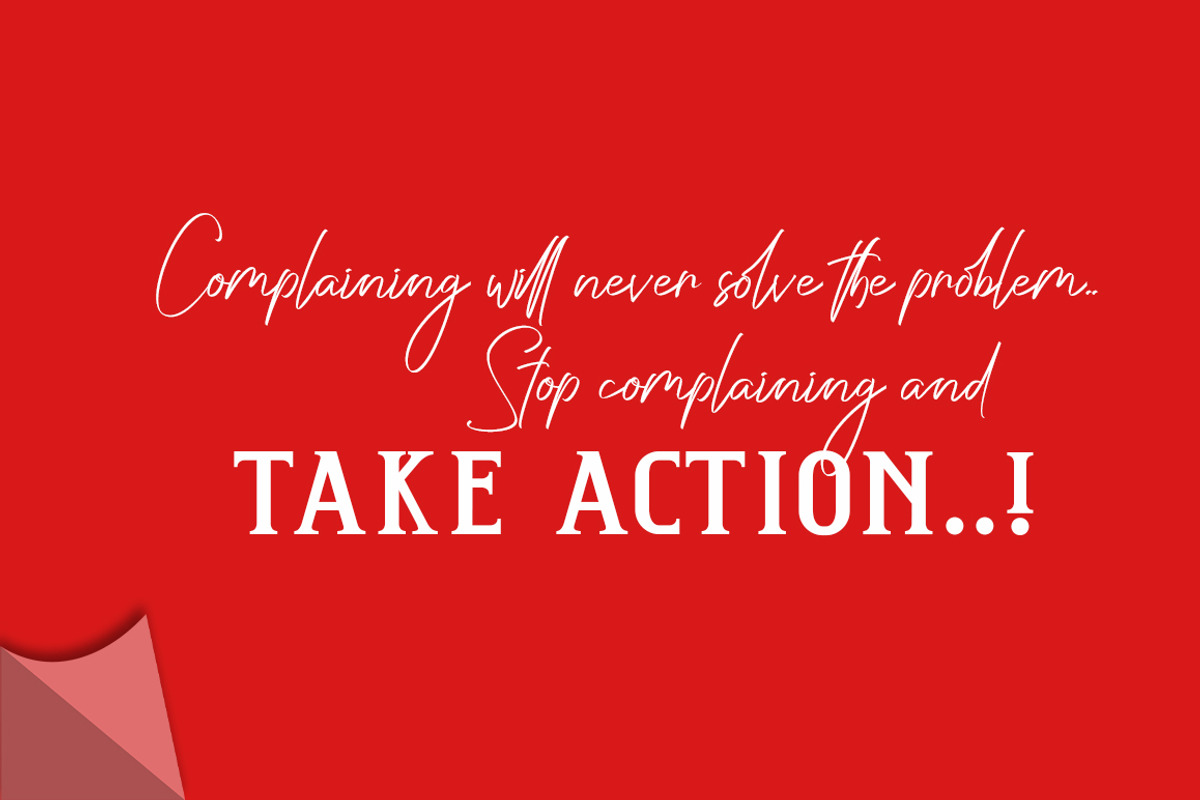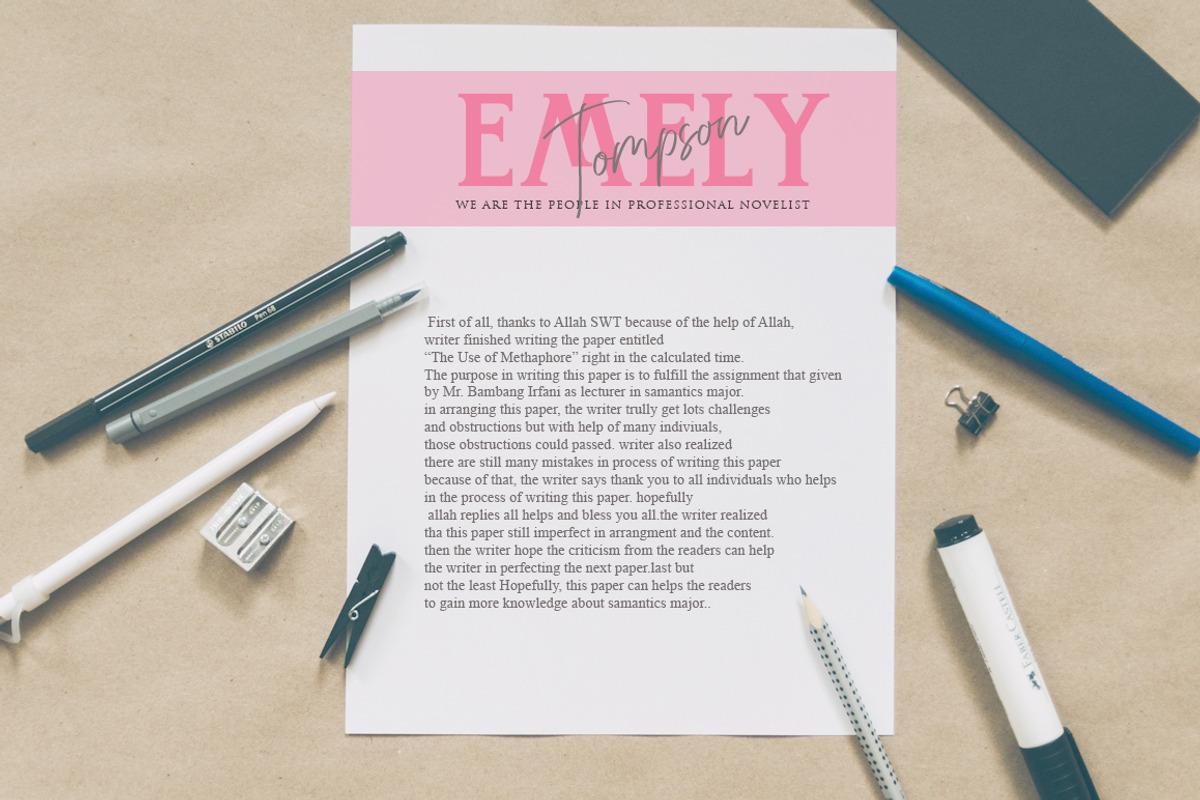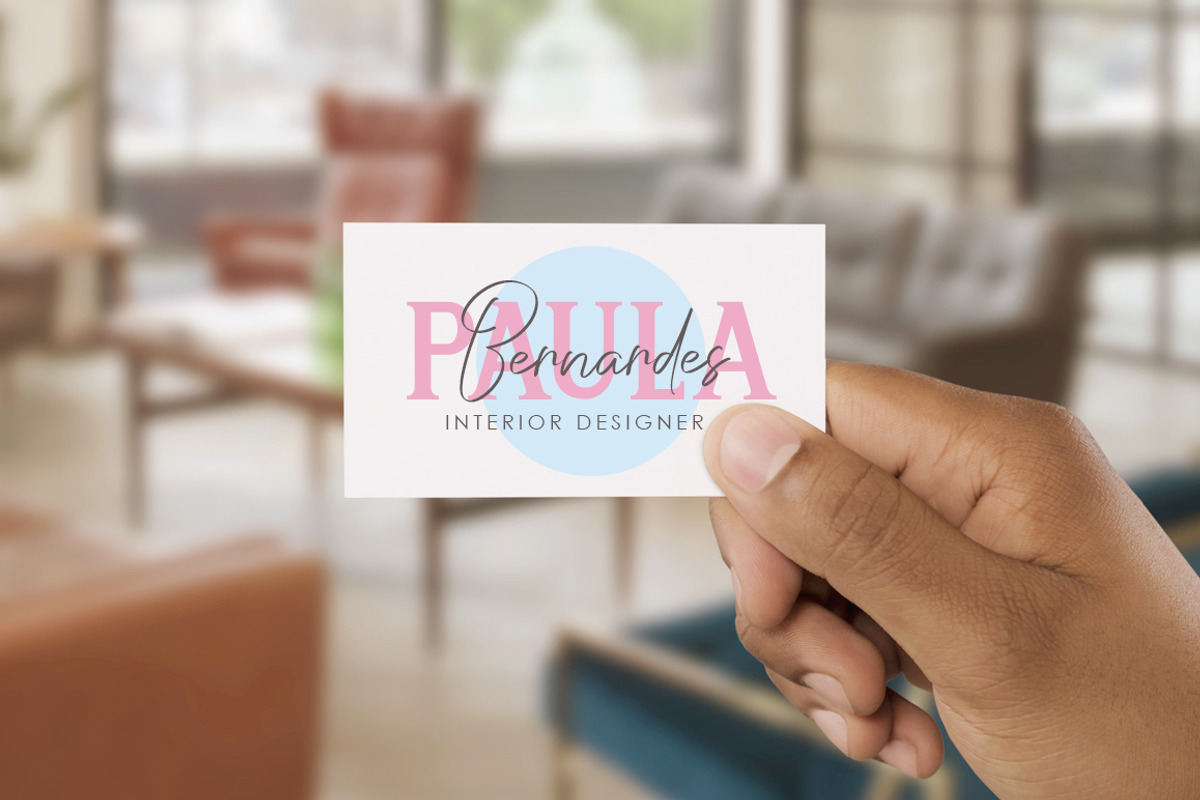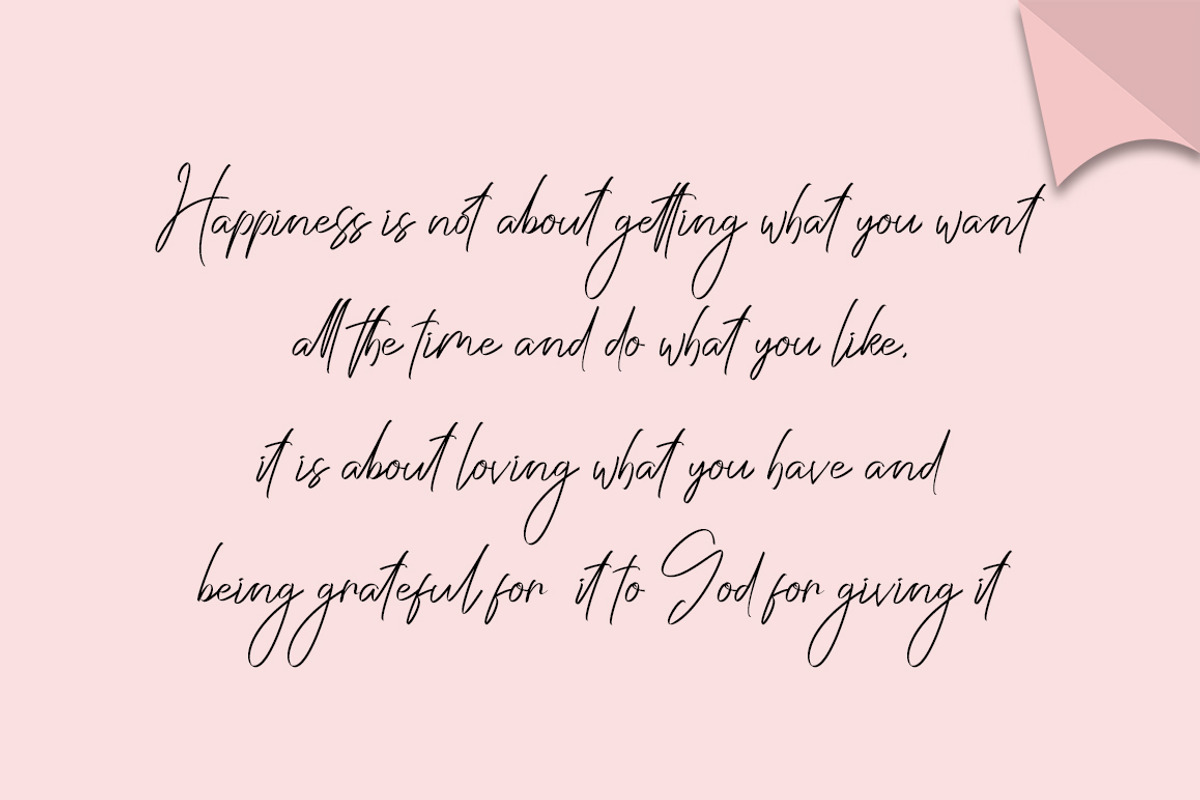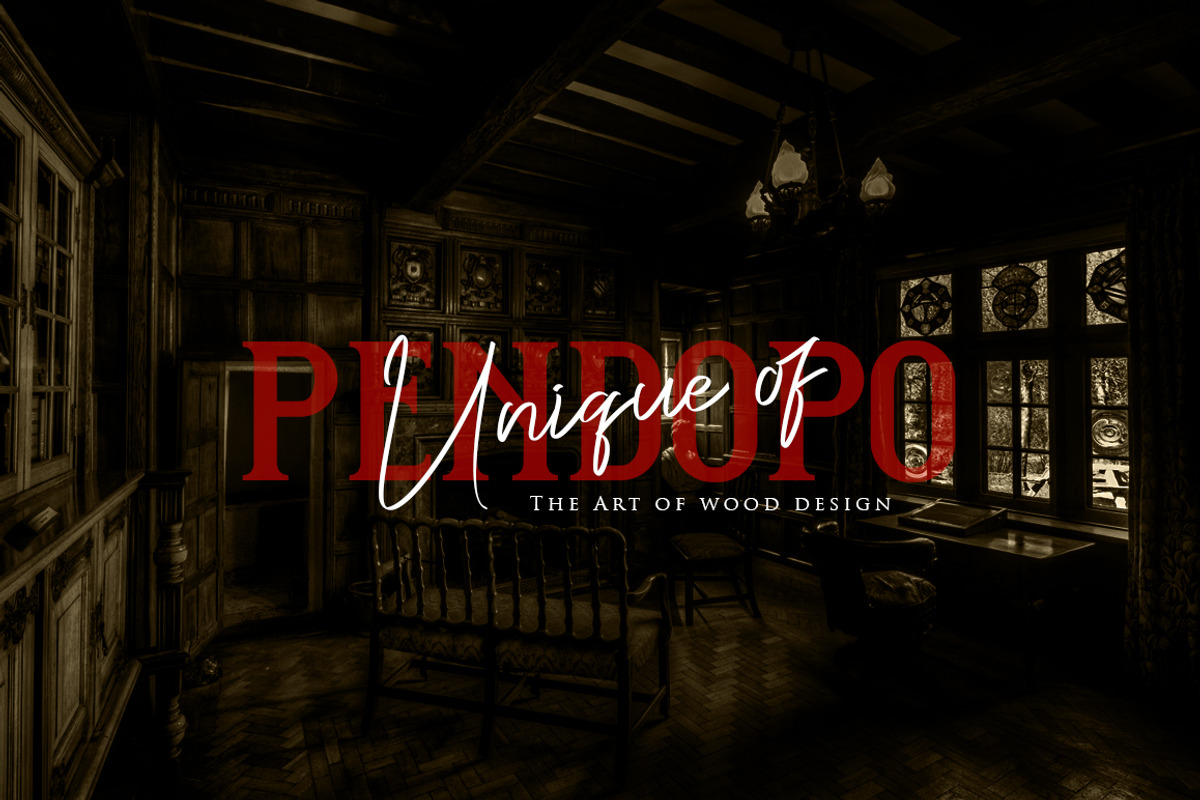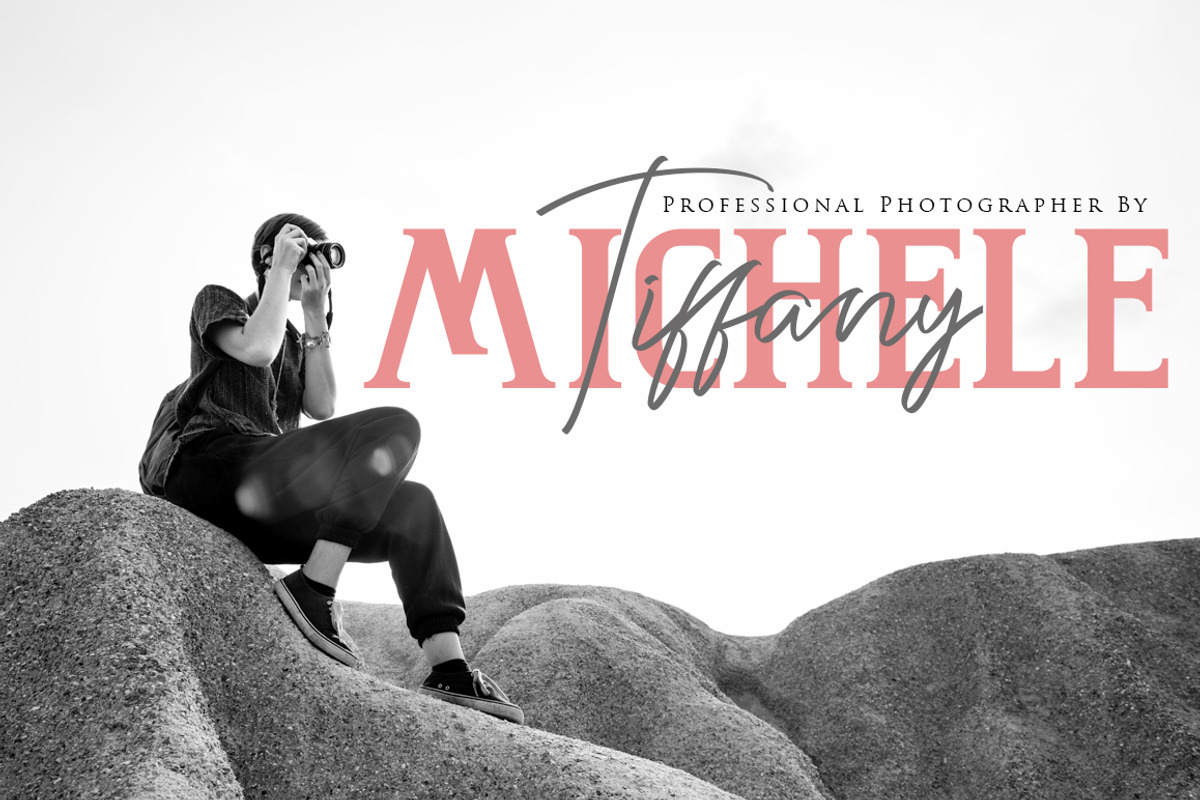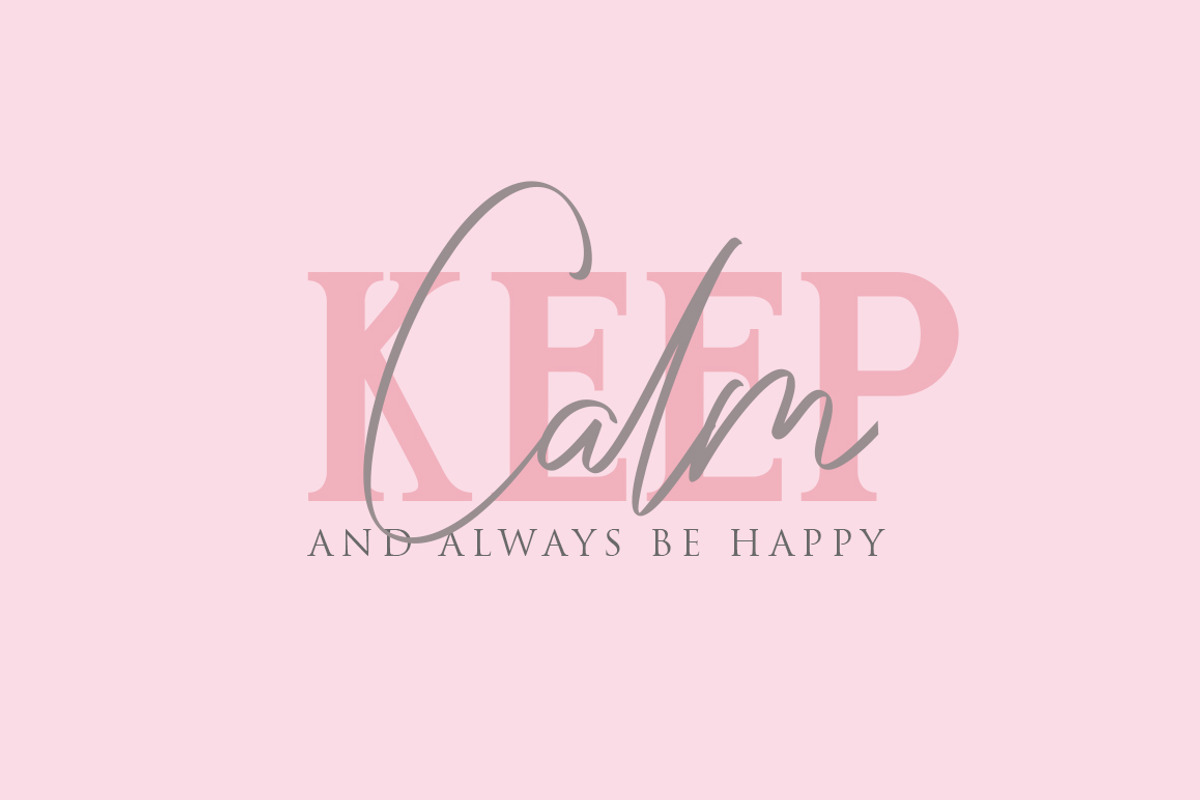
Washington DC / Elegant Font Duo
Introduce my New Product "Washington DC" The new fresh handmade script and serif font. Very suitable for greeting cards, branding materials, business cards, quotes, posters, and more! This font are perfect for all brand :)
UpperCase & Lowercase Numerals & Punctuations Ligatures Multilingual characters (AÀÁÂÃÄÅCÇDÐEÈÉÊËIÌÍÎÏNÑOØÒÓÔÕÖUÙÜÚÛWYÝŸŸ ÆŒßÞàáâãäåæçèéêëìíîïðñòóôõöøùúûüýÿ)